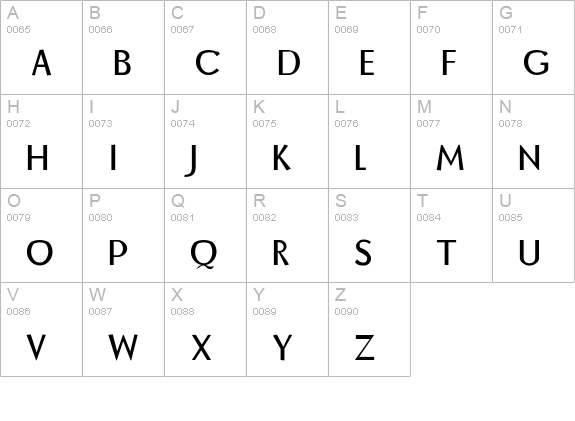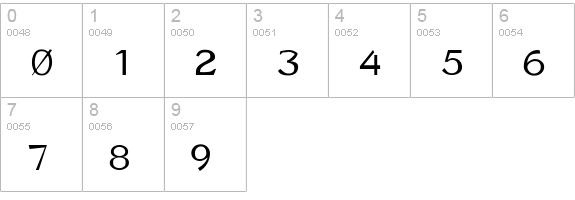
BorzoiRegular Font Details
BorzoiRegular is a beautifully crafted font that exudes elegance and sophistication. Its sleek lines and graceful curves make it a versatile choice for a wide range of design projects. Whether you're working on a branding project, editorial layout, or website design, BorzoiRegular will add a touch of refinement to your work. This exquisite font is available for free download at FontsMarket.com, making it easily accessible to designers and creatives looking to elevate their projects with a touch of class. With its timeless appeal and impeccable craftsmanship, BorzoiRegular is sure to become a staple in your font collection. Download it today and let its unique charm inspire your next creative endeavor.